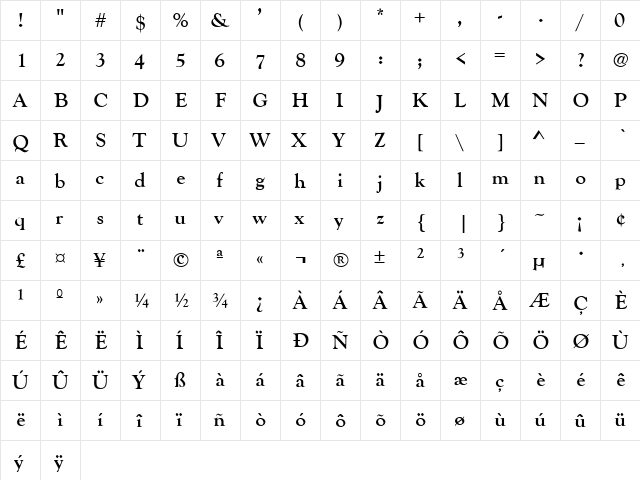
GoldenOldStyle Bold
Design Context for GoldenOldStyle Typeface
GoldenOldStyle brings classic typographic sensibility to the table — its serifs and measured letterforms reflect centuries of print heritage. Its bold stroke weight gives it real presence on the page.
Pro Tip: Use GoldenOldStyle for editorial body copy and considered headline work. Pair with a neutral sans for UI elements or captions to create a classic hierarchy.